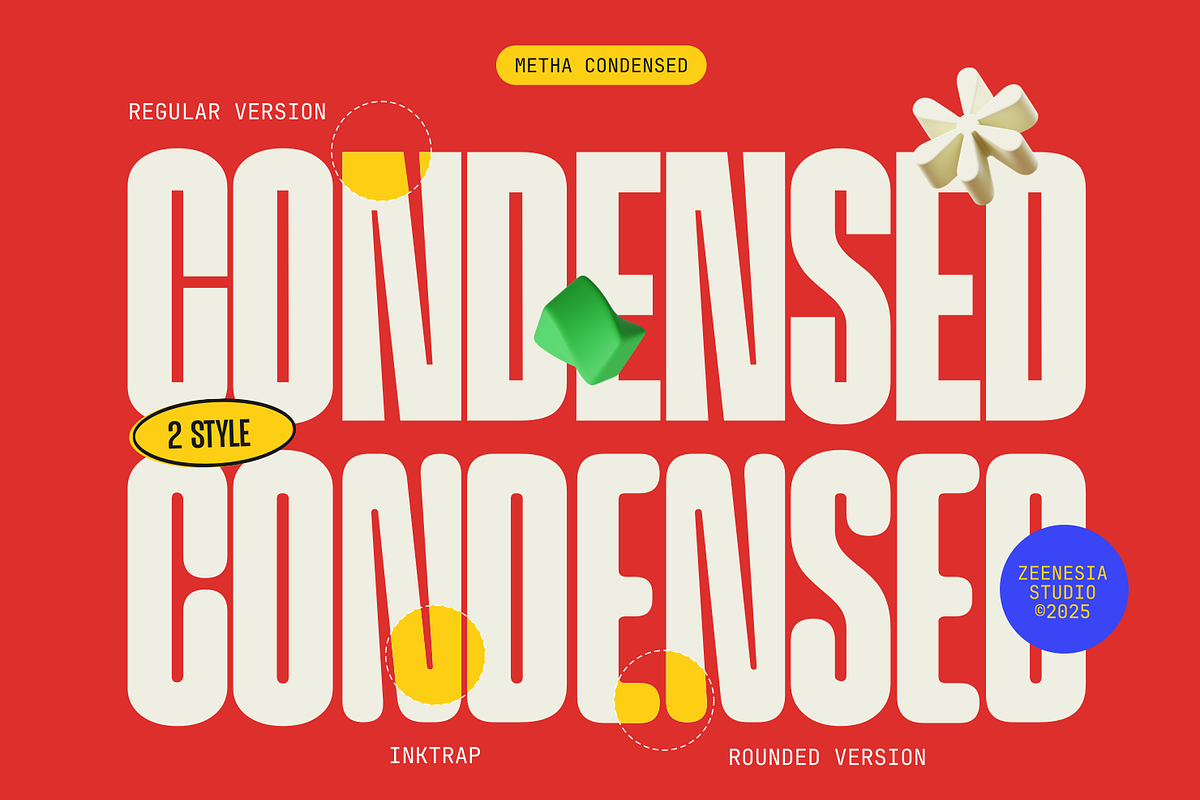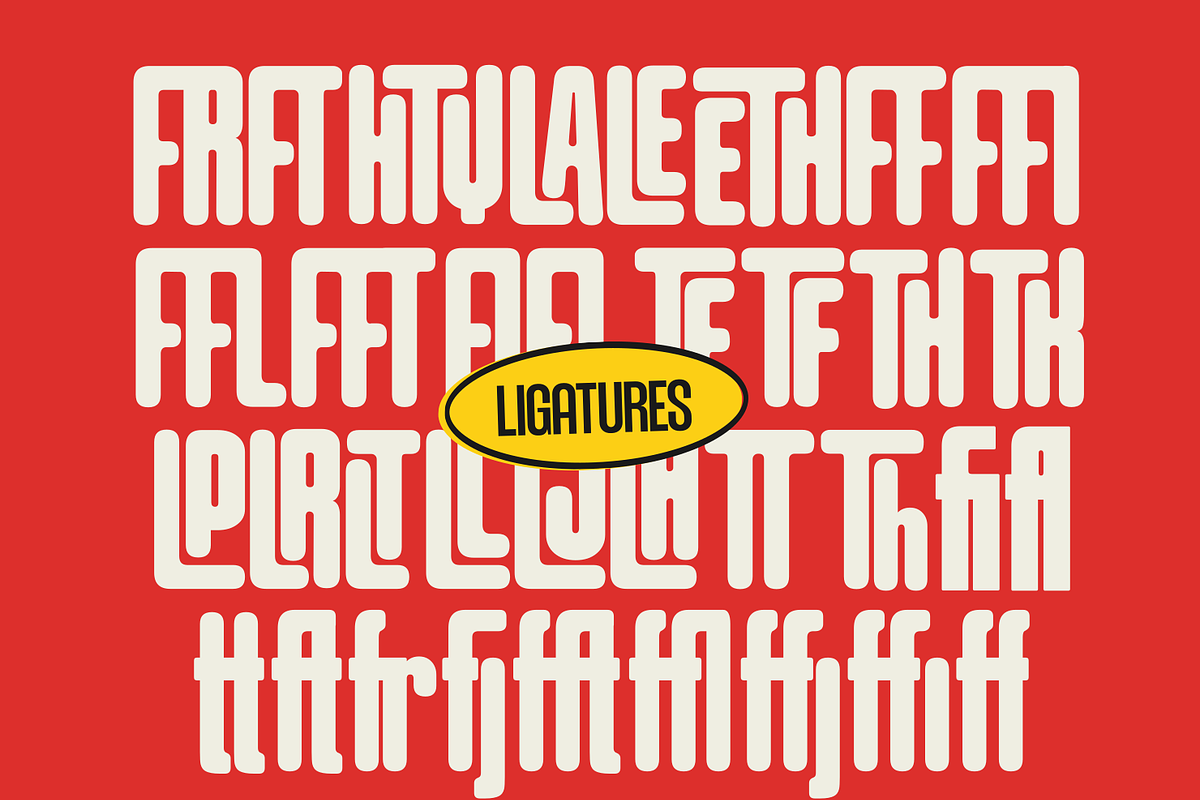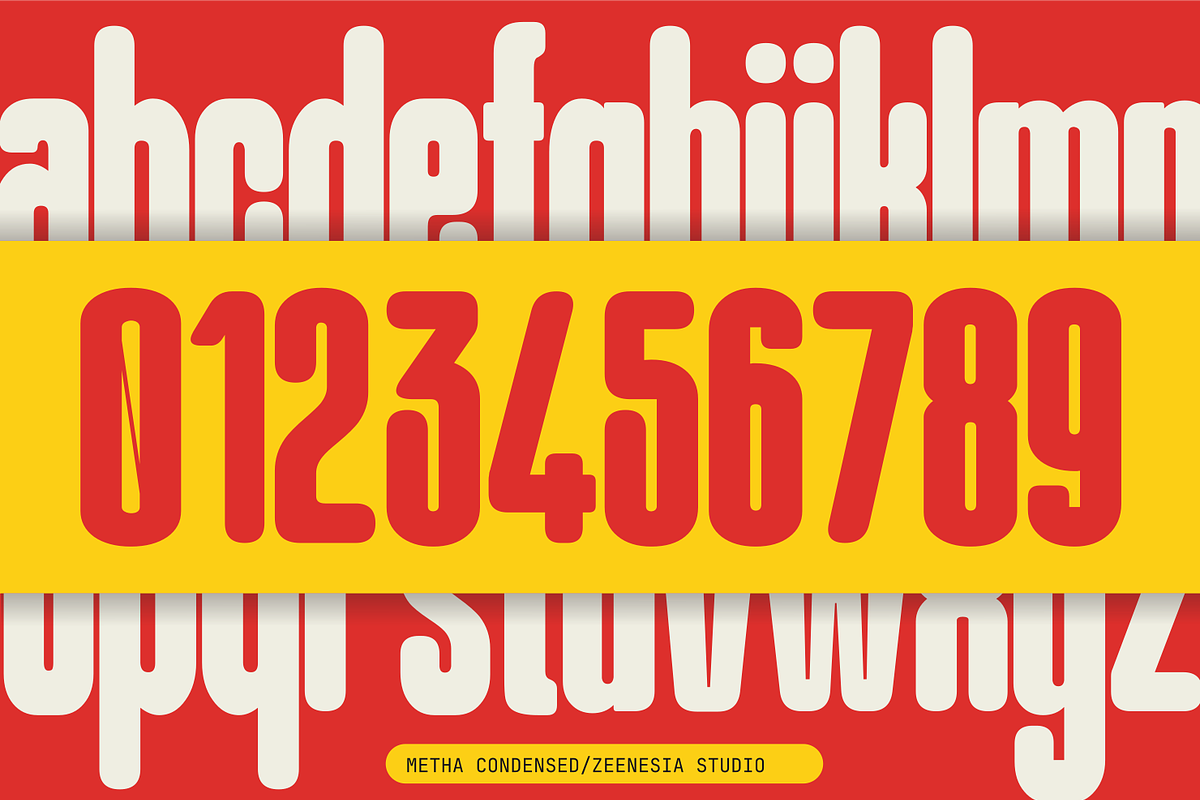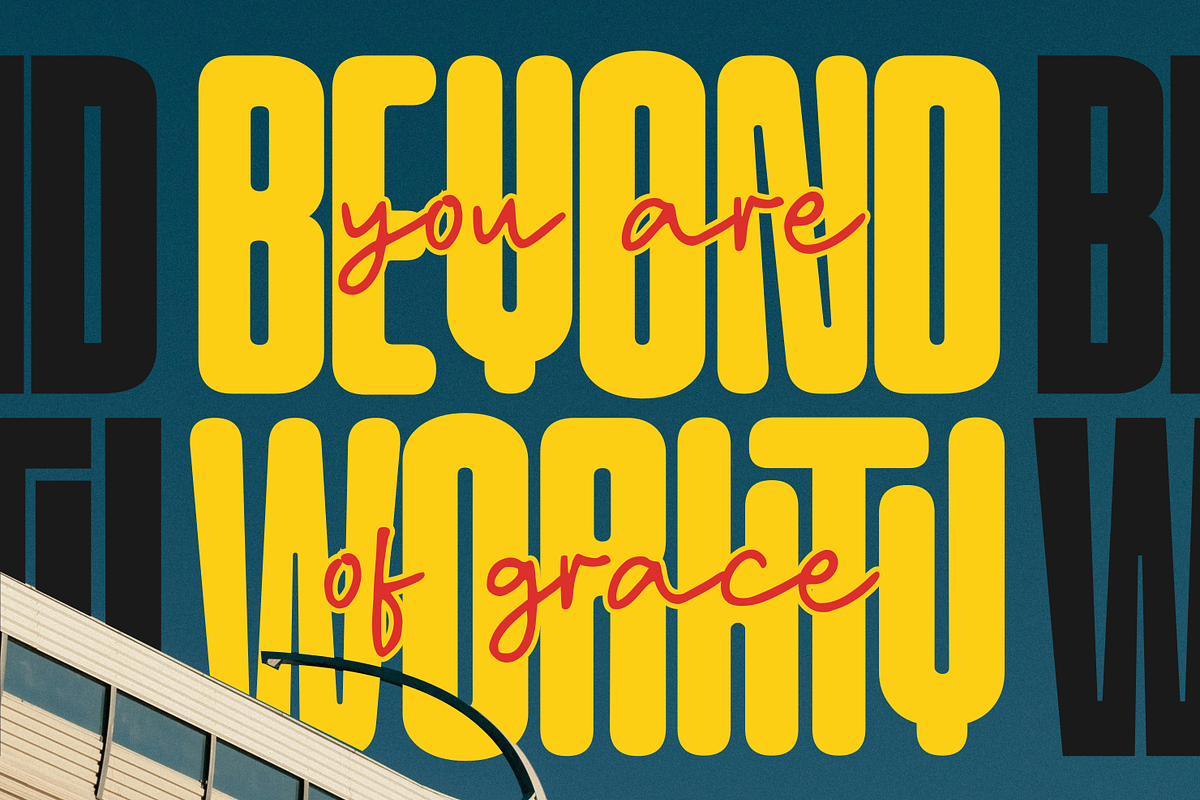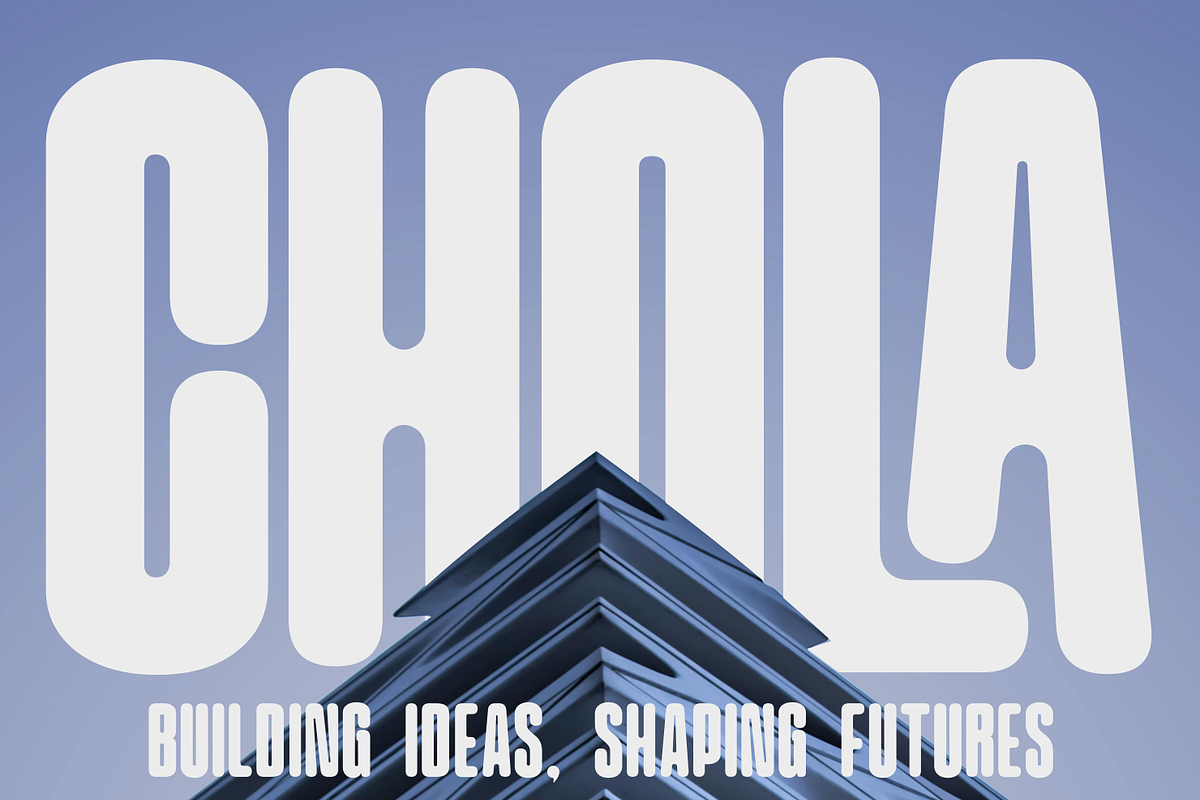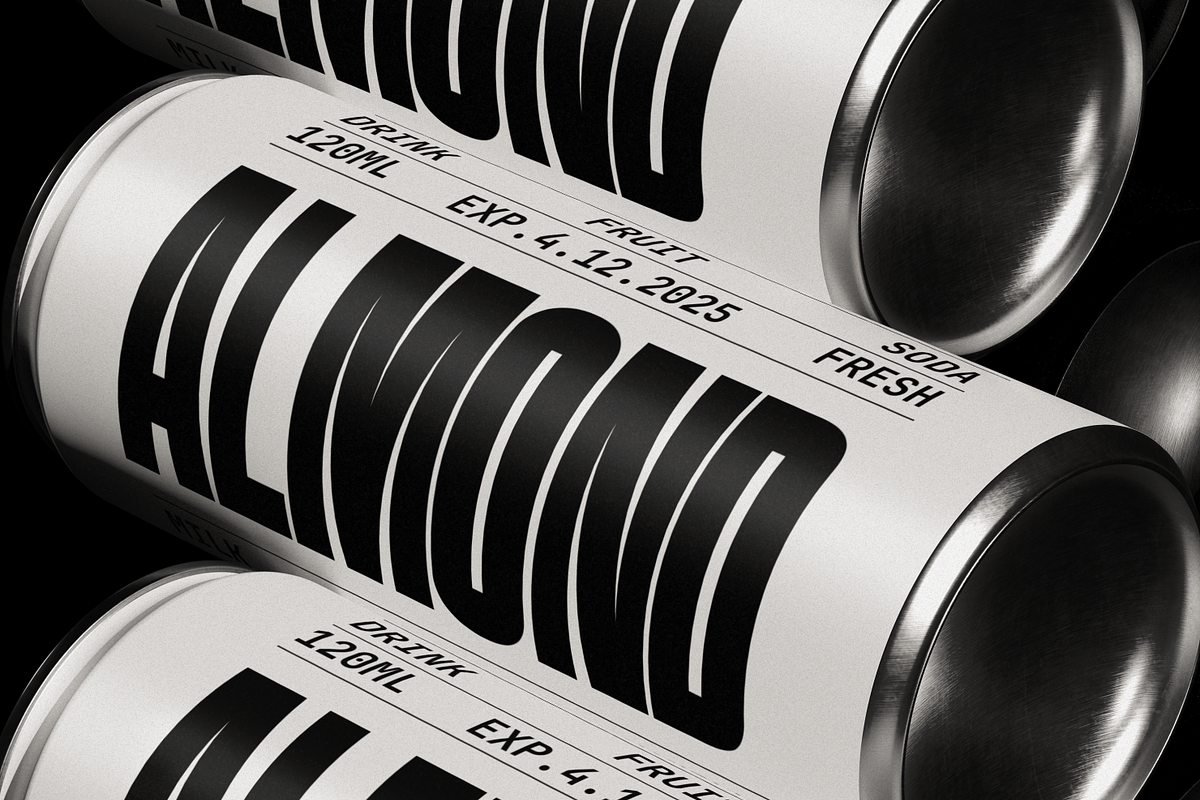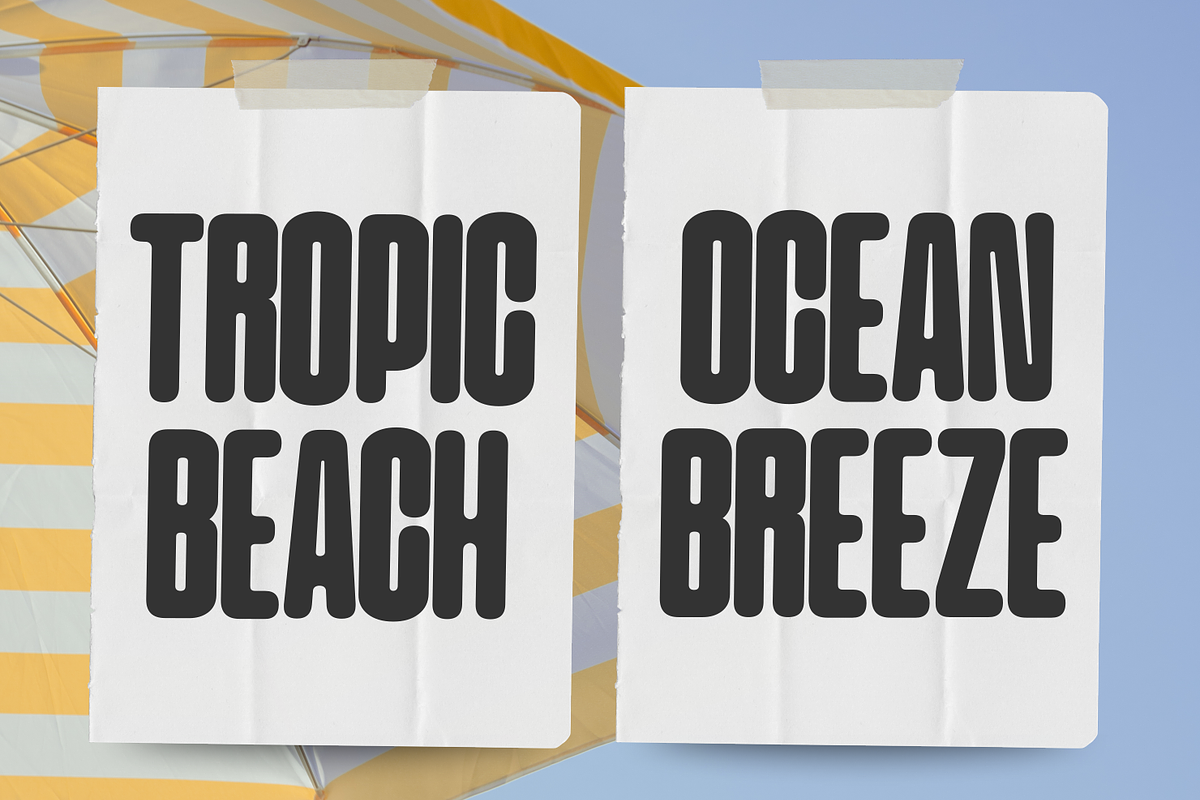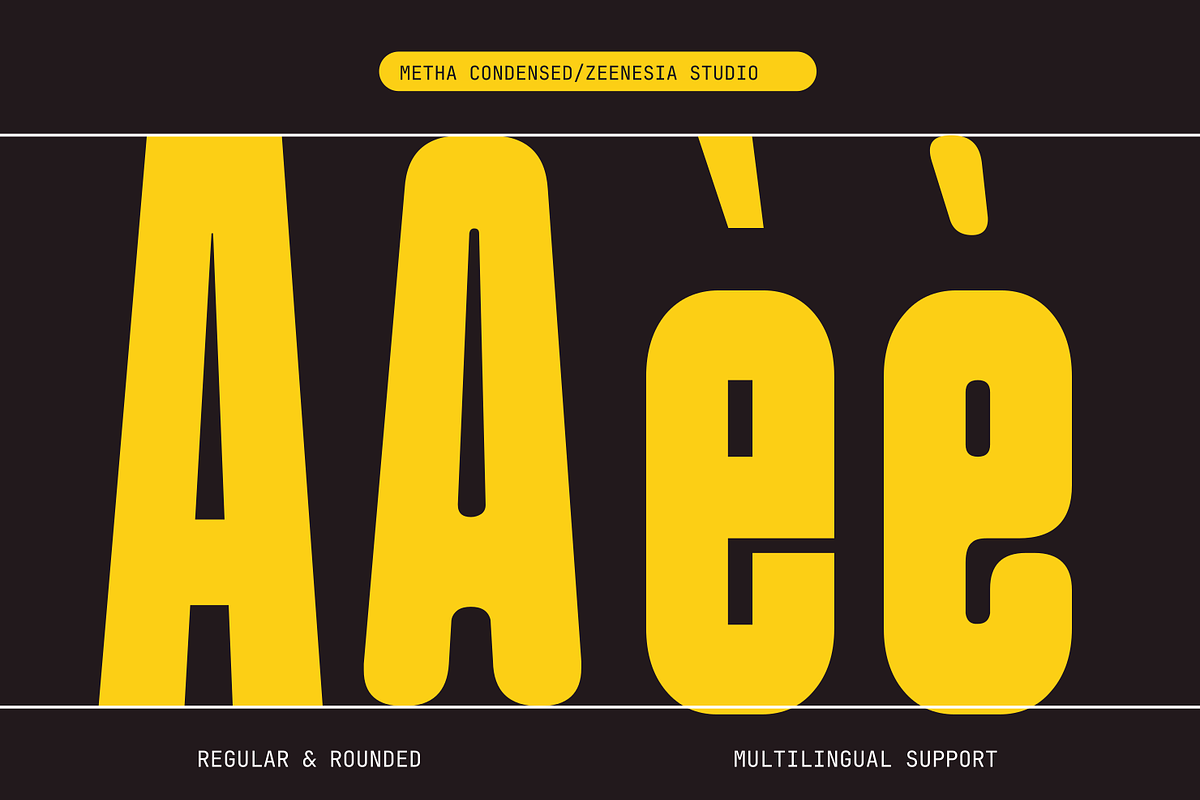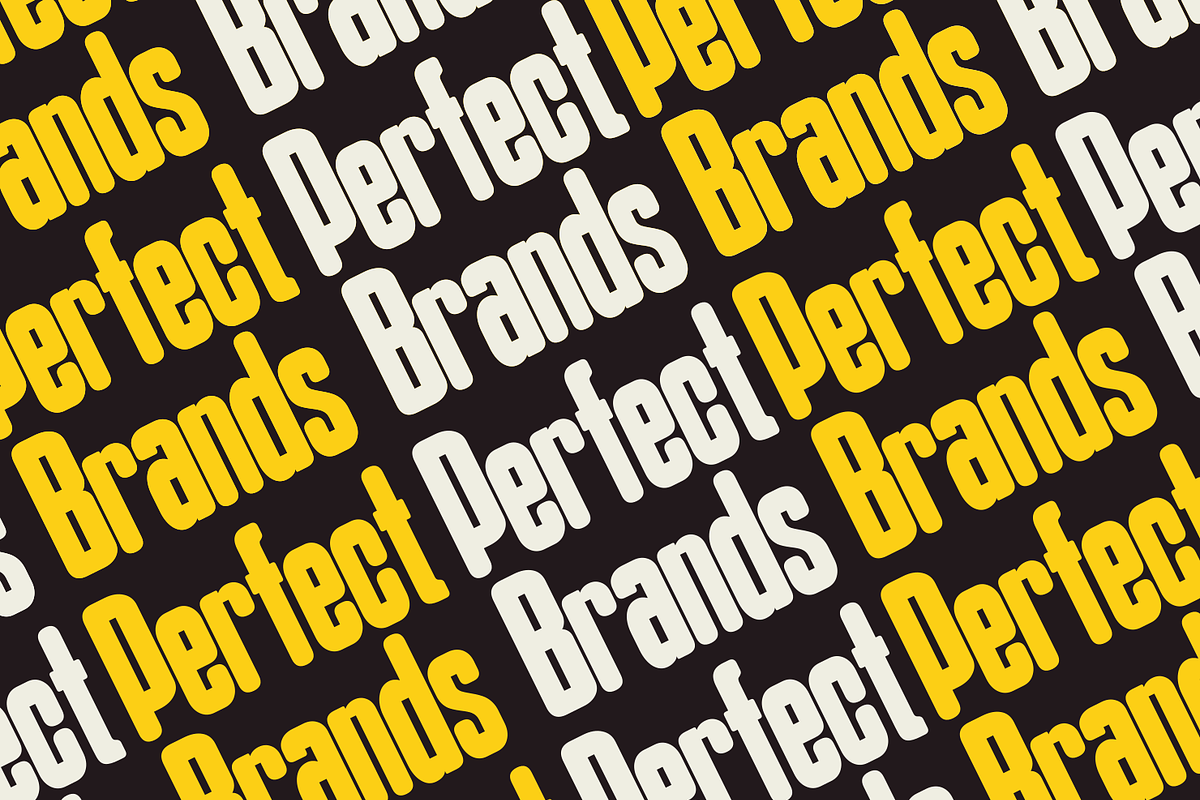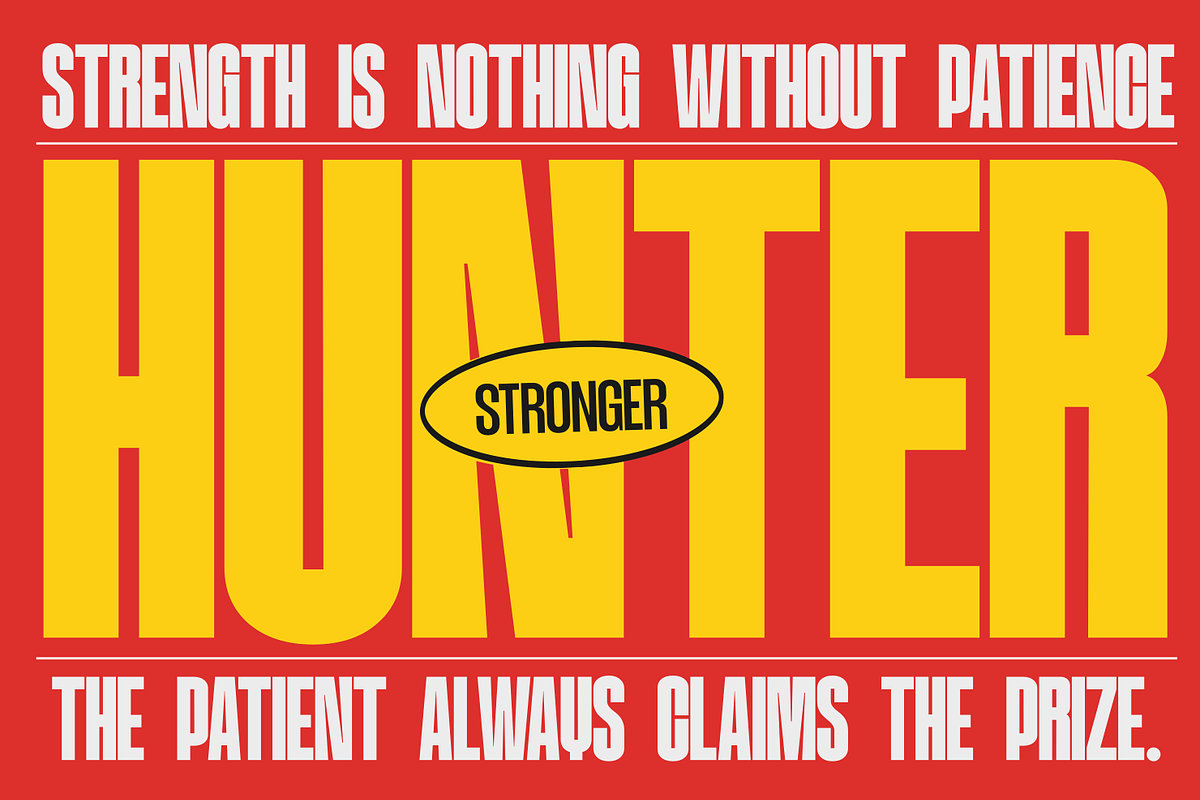
Metha
"Metha." It is a modern, rounded sans-serif typeface that offers a friendly, contemporary vibe. The font is available in two styles: Regular and Rounded. It features bold, clean lines with rounded edges, making it versatile and approachable. The letterforms are wide, offering excellent readability, while the smooth curves lend a soft, inviting appearance. Metha works well in both display and body text, making it ideal for various design projects that require a modern, yet approachable look. Its playful and bold nature makes it suitable for branding, advertising, and creative applications. What’s Included : - Metha Regular (OTF/TTF) - Metha Rounded (OTF/TTF) - Standard glyphs & Ligature - Multilingual - Web Font - Works on PC & Mac Simple installations We hope you enjoy the font, please feel free to comment if you have any thoughts or feedback. Thanks for purchasing and glad to help you!